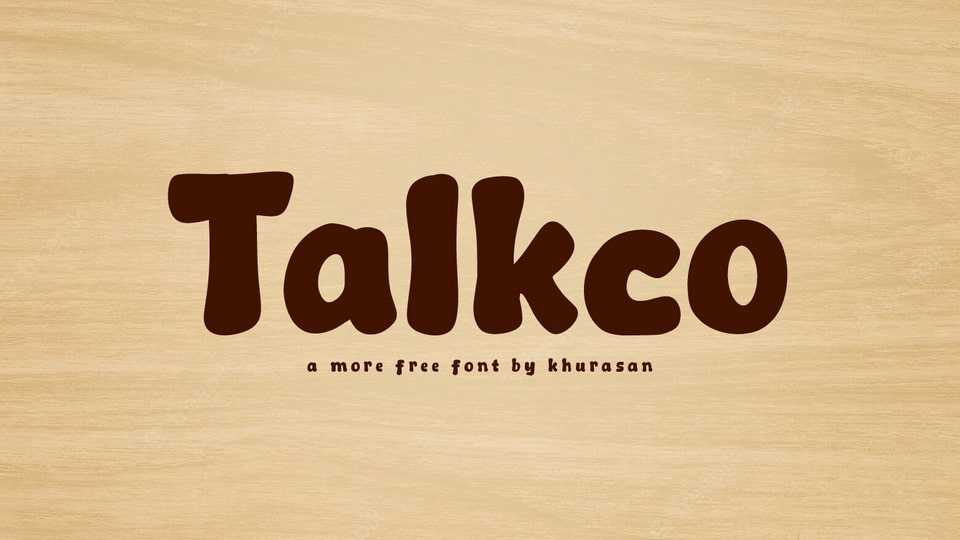
Download Talkco font, a rounded and irresistibly cute hand-drawn typeface that adds a touch of whimsy and warmth to your designs. Talcko font features soft and smooth letterforms, with each character exuding a sense of gentle charm and friendly personality.